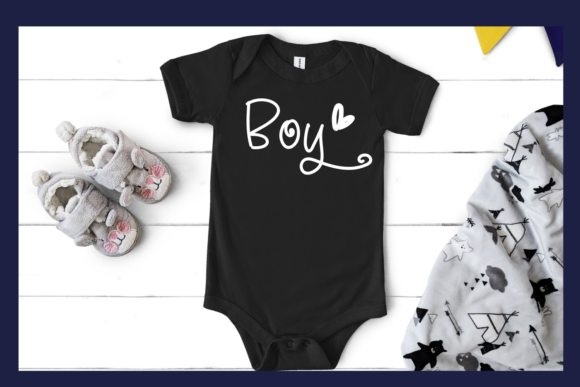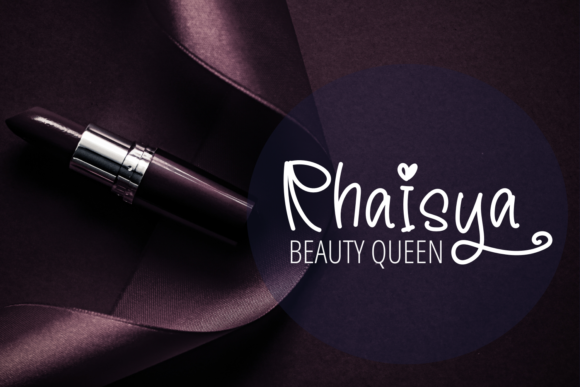
Night Dream Font
db-ku.com - Script & Handwritten -- Night Dream is an incredibly distinct, delicate, and timeless handwritten font. Featuring lightweight letters and standard punctuation. Night Dream is perfectly suited for traditional media and web. Great for crafters and graphic artists alike. Compatible with such Photoshop and Adobe Illustrator. Its Playfulness makes it great for creative projects, be it inspirational wall posters or for communicating your brand.